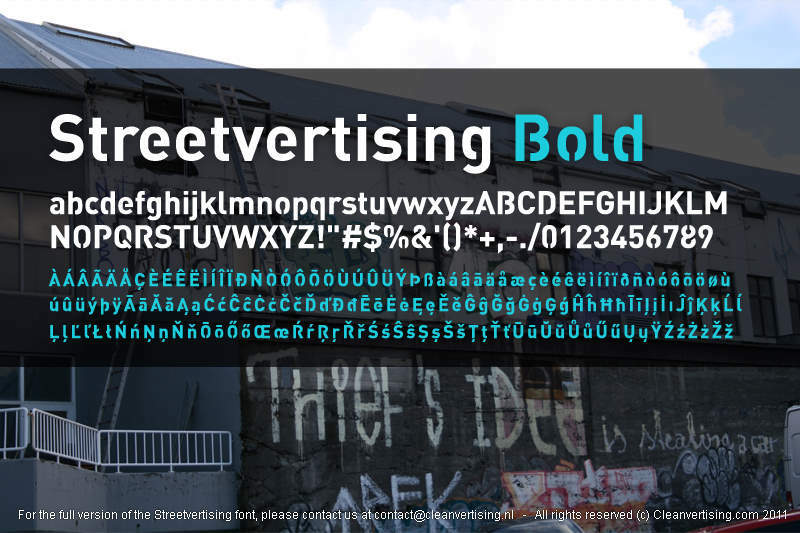
Streetvertising Bold by Brandon Landaal of Cleanvertising.com is a free heavy sans serif with broad, tightly fitted letters and an emphatic commercial voice. Rounded joins and curved bottoms soften the dense construction.
The blunt modern advertising style points naturally toward campaign posters and retail signage, where a few large words can function as the main graphic. It also suits sports merchandise, music event graphics, and bold editorial covers because the compact forms retain substantial visual weight across very different subjects. Their broad silhouettes can echo solid bars, panels, and cropped photographic shapes, making the type part of the campaign imagery rather than a detached caption.
Streetvertising Bold